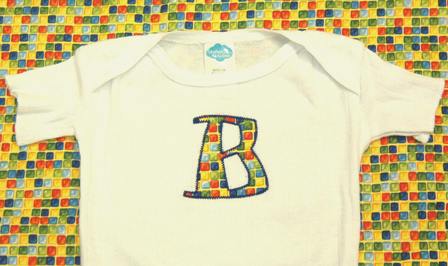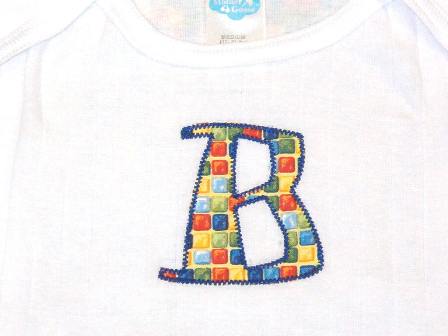
WACKY WONKY APPLIQUE FONT - 3 SIZES INCLUDED!
What a SUPER CUTE & FUN Applique font set!
A different kind of applique stitch than I normally digitize, the final stitching is a double decorative zig zag stitch, not the standard satin stitch which means these take 1/2 the time to stitch as "regular" satin applique designs!
Here is how the medium sized Cap looks on a onesie:
See how cute the lower case letters look on a onesie:
look how cute the outline stitches:
FUN, WACKY, WONKY font for all your applique needs.